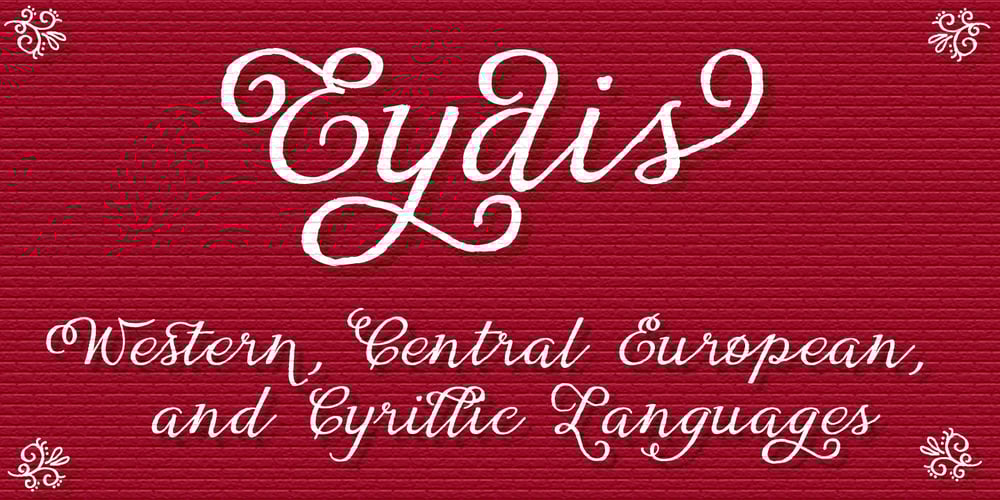
Eydis Font Family was designed by Carine de Wandeleer and published by Eurotypo. Eydis contains 4 styles and family package options. Eydis Regular is a casual script font that retains the original texture of the stroke on the paper. This font has good legibility as body type and strong expressiveness to be used as headlines or logotypes in all media requirements. These calligraphy fonts have already an extended character set to support Central and Eastern, Cyrillic as well as Western European languages. It has several especial alternatives for all letters that offer an infinity of design’s combinations. There are plenty of options to allow you to create something unique and special: standard and discretionary ligatures, several swashes and stylistics alternates for each letter, catchwords and much more. You may enrich your design using the Eydis Ornament set, with his 91 glyphs, tails and ornaments, whatever allows even more combinations. Eydis was made for turn your project more expressive, beautiful, and attractive! Have fun and be successful with it!